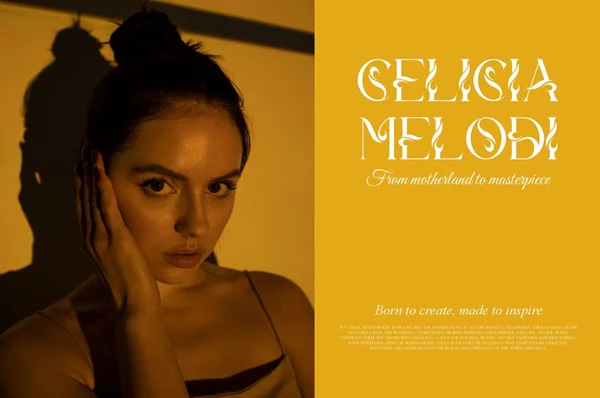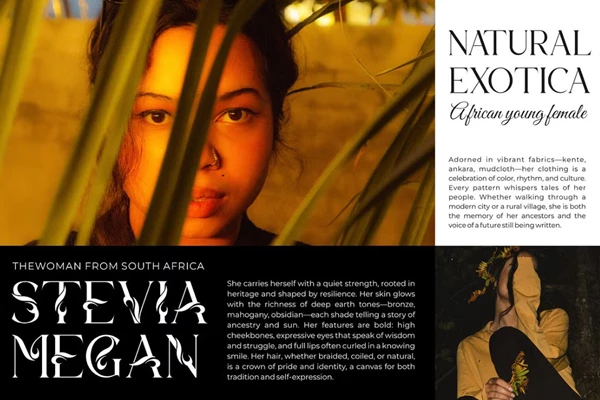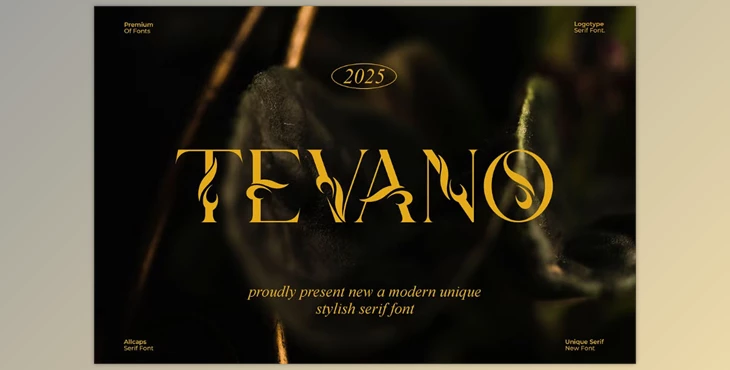
Tevano || Modern Unique Serif Font:
Meet Tevano Serif, a fresh, stand-out typeface built to give brands and logos a little extra lift. Its graceful, modern lines slide right onto wedding invites, movie credits, or the crisp front of a new business card without breaking a sweat. Designers often call that built-in polish versatile, and Tevano proves the point every time its letters hit the screen or the page.
Some great features of Tevano || Modern Unique Serif Font:
- On-screen typography gets a boost from the supplied ligatures.
- Full uppercase and lowercase sets are ready for work.
- Digits, punctuation, and special characters are included.